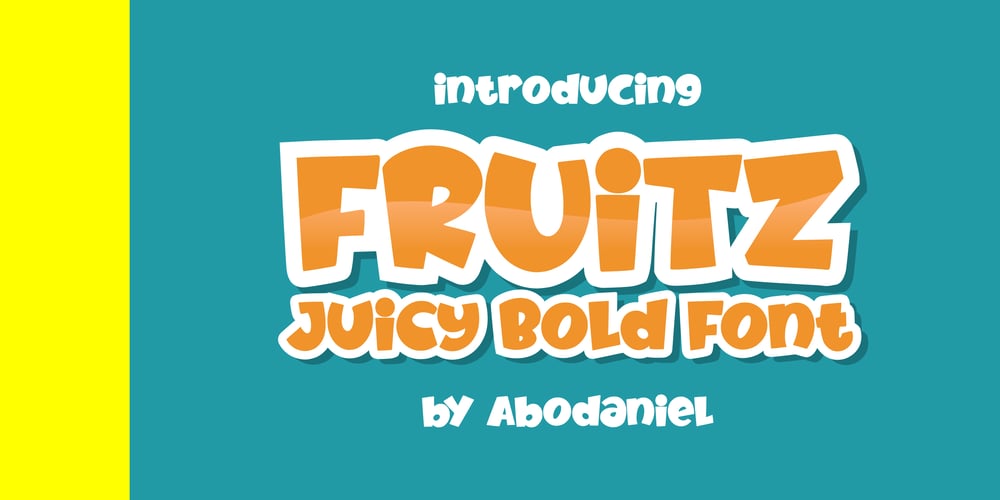
FRUiTZ Font Family was designed by Abo Daniel and published by Abo Daniel. FRUiTZ contains 3 styles and family package options. Introducing FRUITZ, a Juicy Bold Font. This font family is great for apparel, branding, logo, magazine, quotes, packaging, advertising, and more, that need cheerful feel. It come in uppercase, lowercase, with punctuations, symbols & numerals. Also support multilingual and already PUA encoded. The Fruitz Doodles are completing this font family.